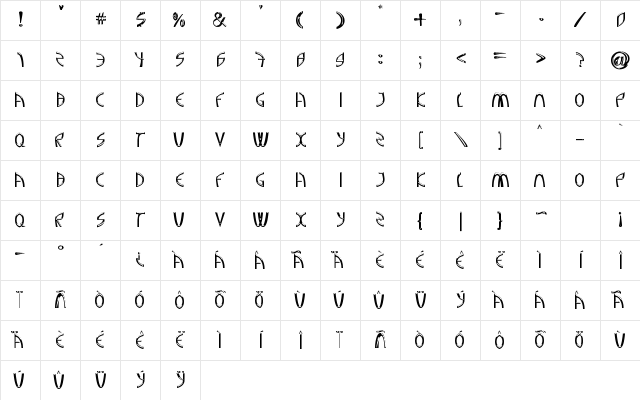
Complete A Greater Foundation Undefined glyph index. Displaying only characters natively supported by A Greater Foundation Undefined font.
A Greater Foundation is a composed and adaptable typeface that performs quietly and consistently across a wide range of design contexts.